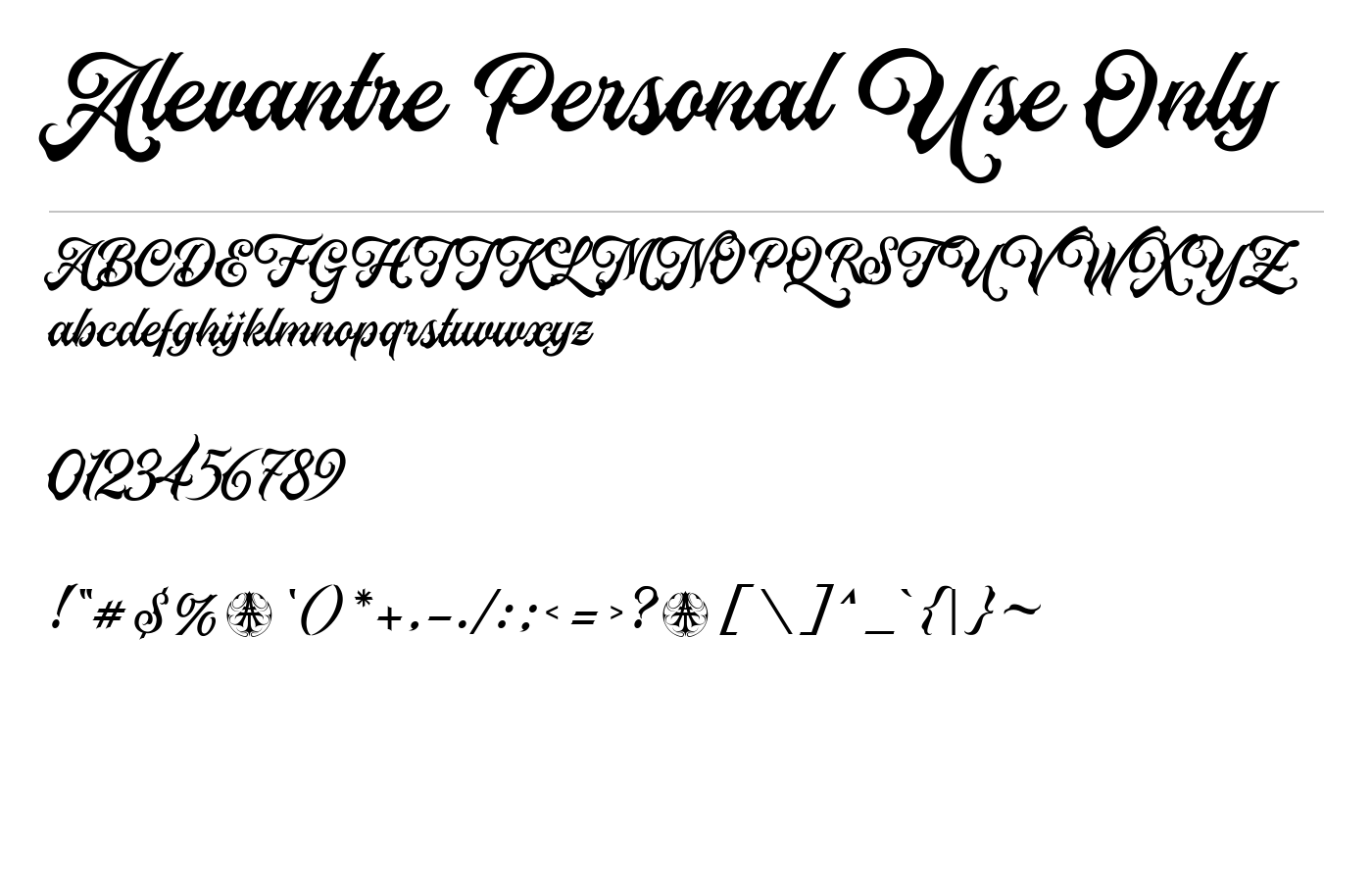
Alevantre Personal Use Only is an elegant script font featuring fluid, calligraphic strokes with medium contrast and decorative swashes that add a vintage, sophisticated flair. Its flowing letterforms and refined details make it ideal for luxury branding, invitations, and eye-catching headlines that require a touch of classic charm and style. This font works best where a graceful, artistic impression is desired to convey elegance and tradition.
Alevantre Personal Use Only Font
About Alevantre Personal Use Only Font